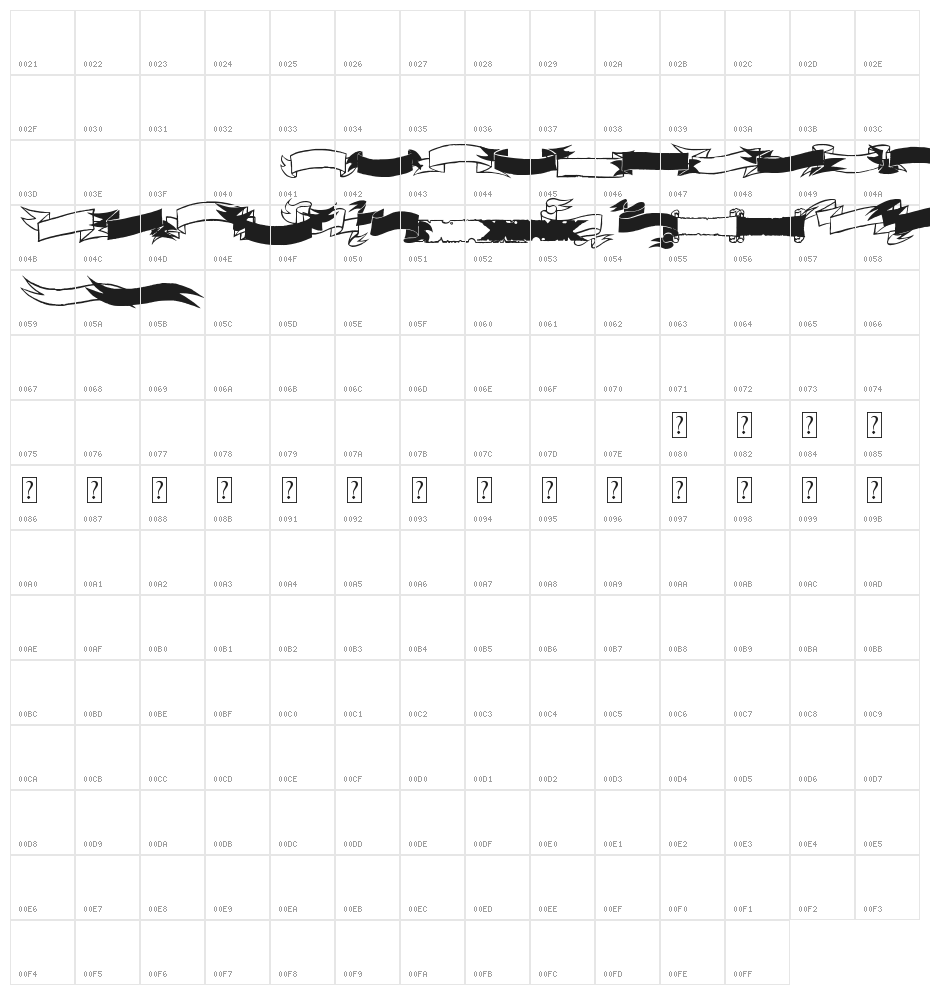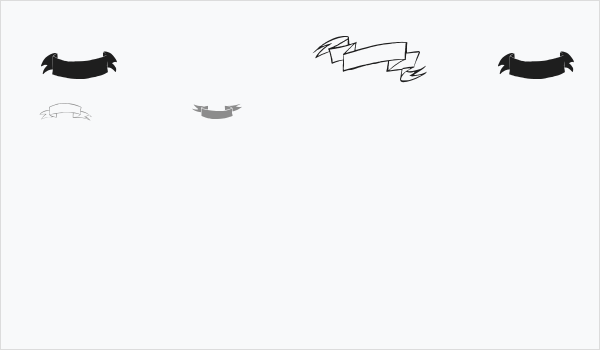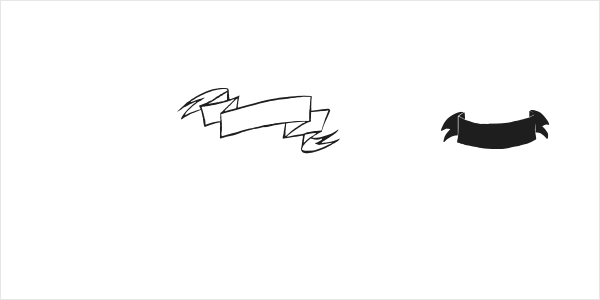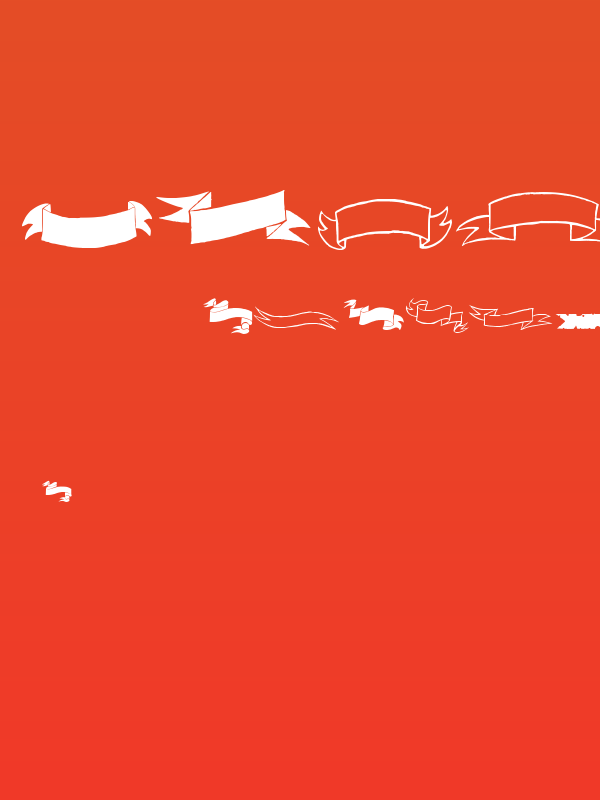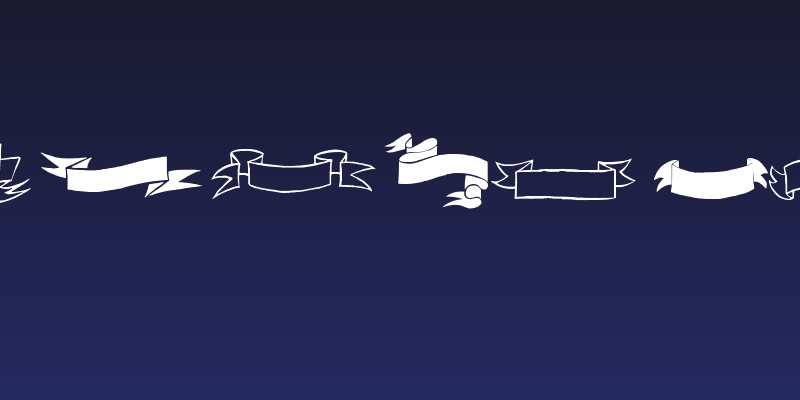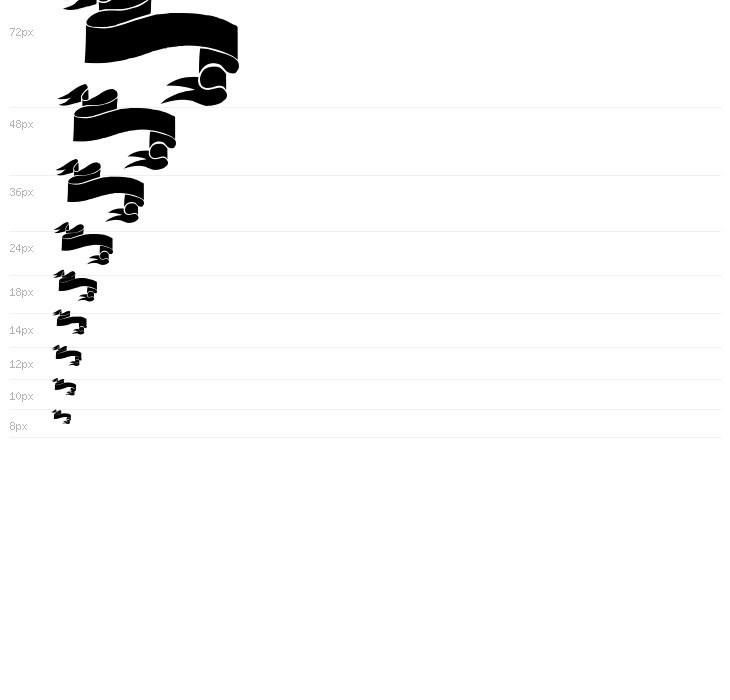
Black & White Banners Font
Black & White Banners Description
A decorative set of black and white illustrated banner shapes, each character representing a unique hand-drawn ribbon or scroll design with varying outlines and fills.
| Overall Style | Decorative, Hand-drawn, Playful |
| Use Case | Logos, Headlines, Decorative accents |
| Proposed Projects | Invitations, certificates, posters, scrapbooking, digital stickers, event signage. |